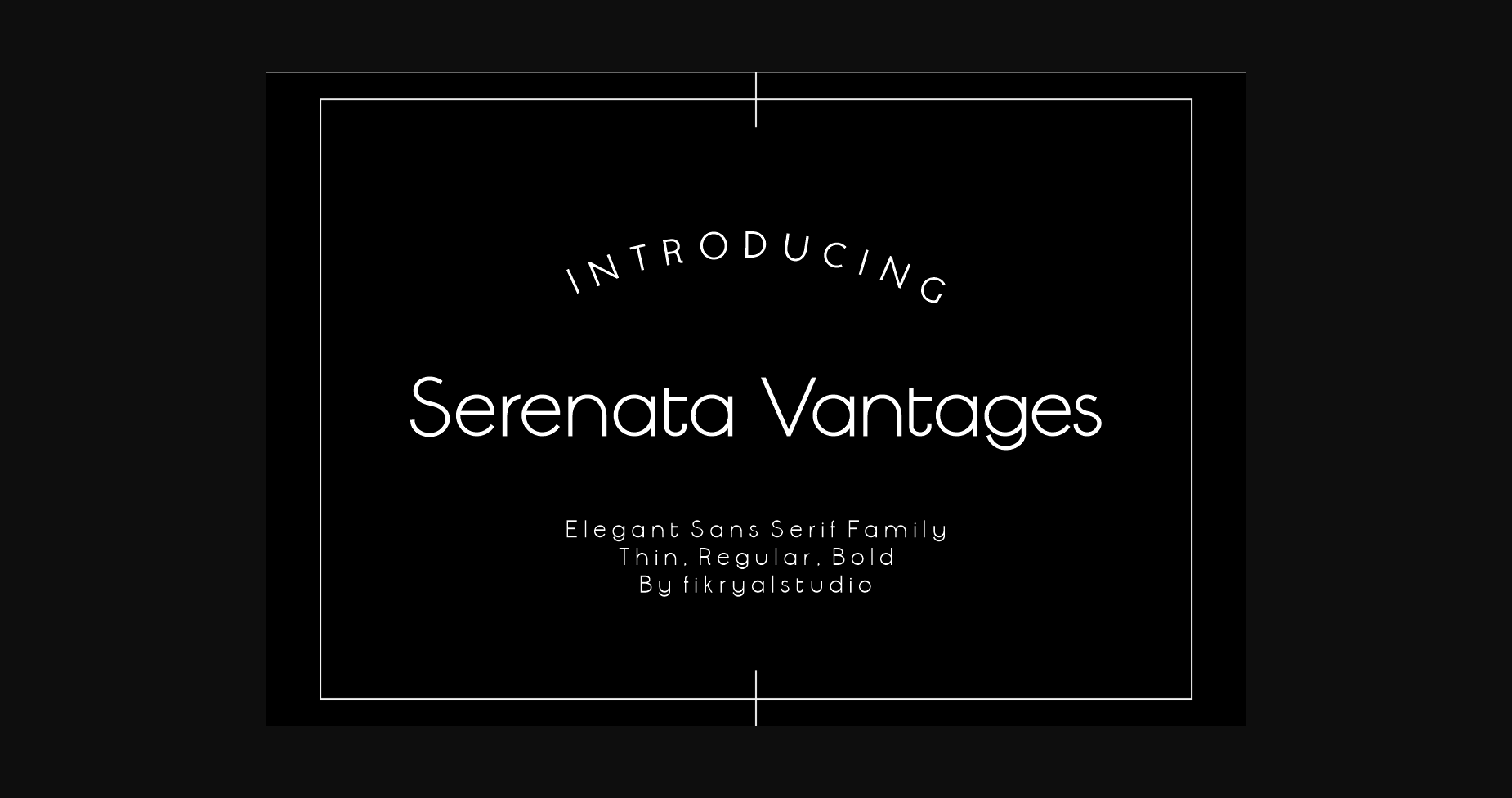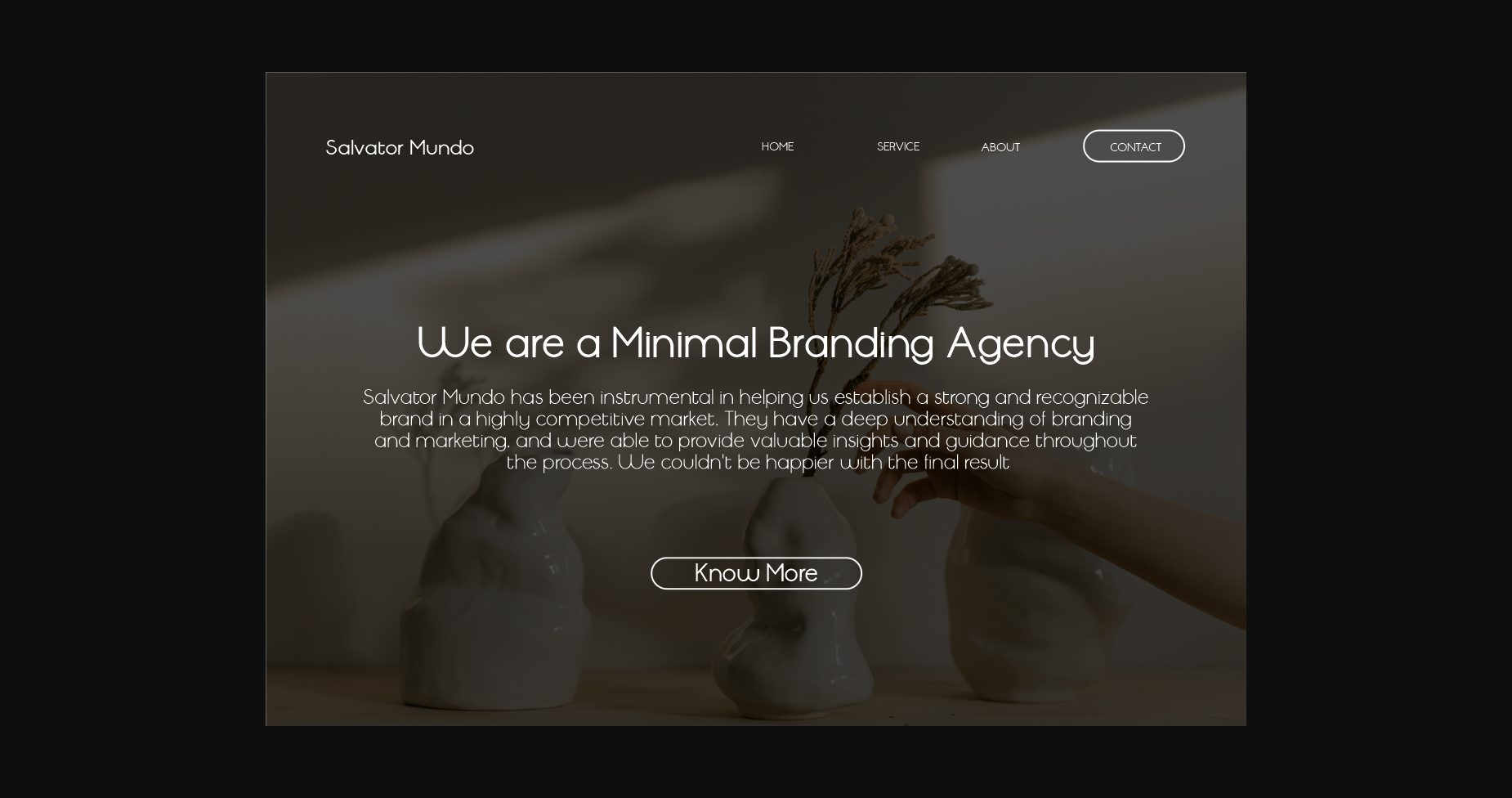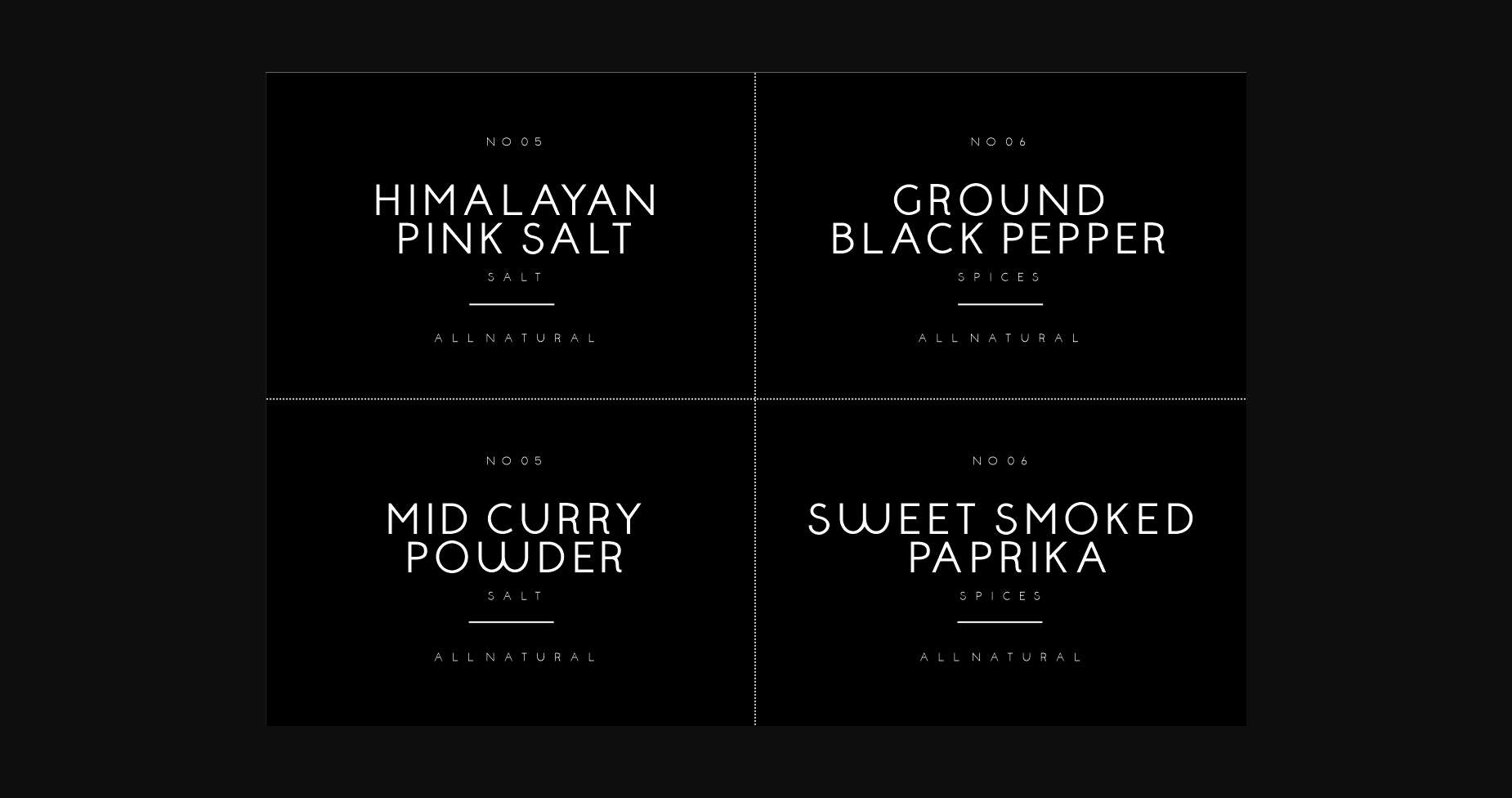
About Serenata Vantages Font
Serenata Vantages is a sophisticated and elegant sans-serif font that exudes modernity and refinement. With its clean lines and well-proportioned letters, this font is perfect for a wide range of design projects, from branding and advertising to editorial and web design.